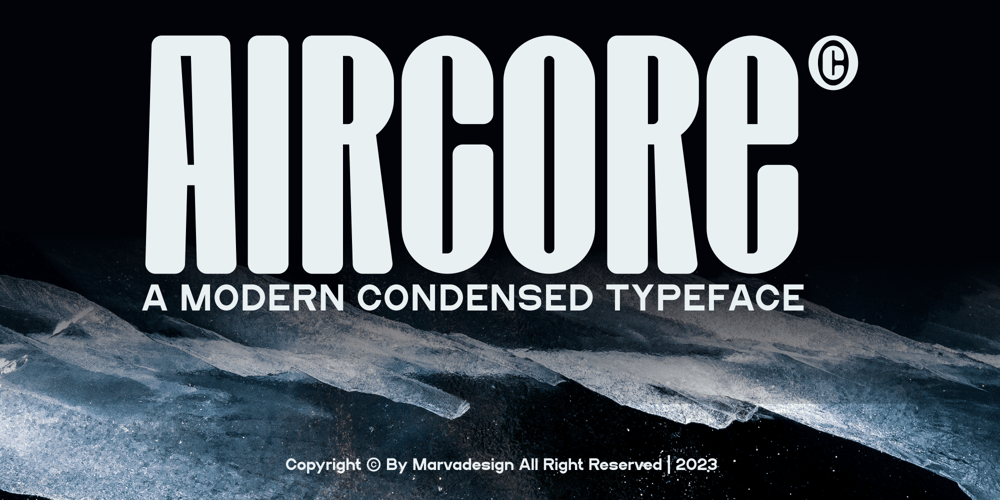
Aircore Font Family was designed by Febrie Setiawan and published by Marvadesign. Aircore contains 1 styles and family package options. Aircore is a tight, clean condensed font featuring characters that appear almost close to each other, creating a dense and efficient text appearance. Perpendicular vertical lines give a sturdy and professional impression, while the letters remain clearly legible even at a small size. With a neat and orderly impression, this font is suitable for designs that require a modern, minimalist and efficient appearance, such as posters, titles or other graphic design elements that require a bold and prominent appearance. Aircore is a tight, clean condensed font featuring characters that appear almost close to each other, creating a dense and efficient text appearance.